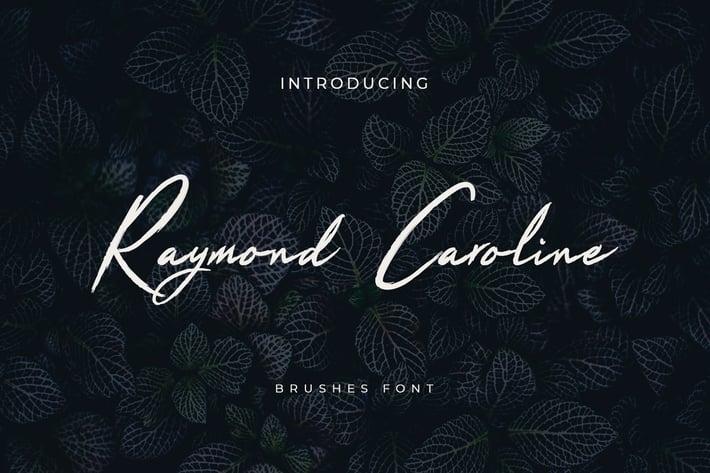
Raymond Caroline Brush Handwritten Font
Raymond Caroline Brush Handwritten Font with extra street food graphics. It's perfectly suited for any Logotypes, Posters, Digital Lettering Arts, Clean Design, Branding Design, Sign, Merchandise, signature, fashion, wedding, photography, social media, ad banner, book cover, packaging, handwritten quotes, greeting cards, and advertising